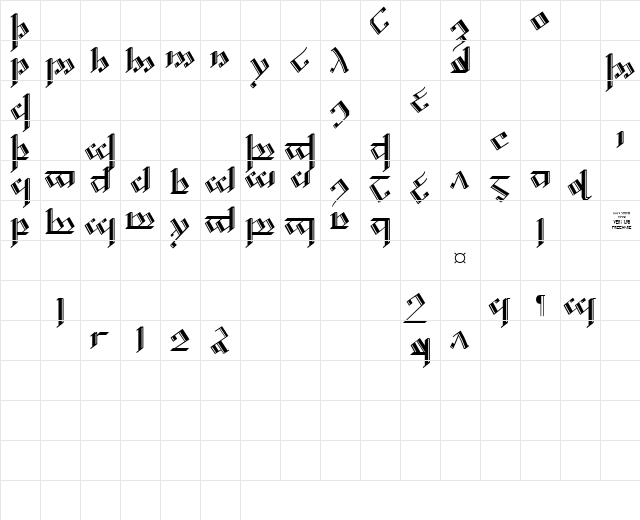
Tengwar Noldor-2 Regular
Design Context for Tengwar Noldor-2 Typeface
Tengwar Noldor-2 takes a measured approach to typography — its balanced proportions and neutral character make it a reliable workhorse for both digital and print work.